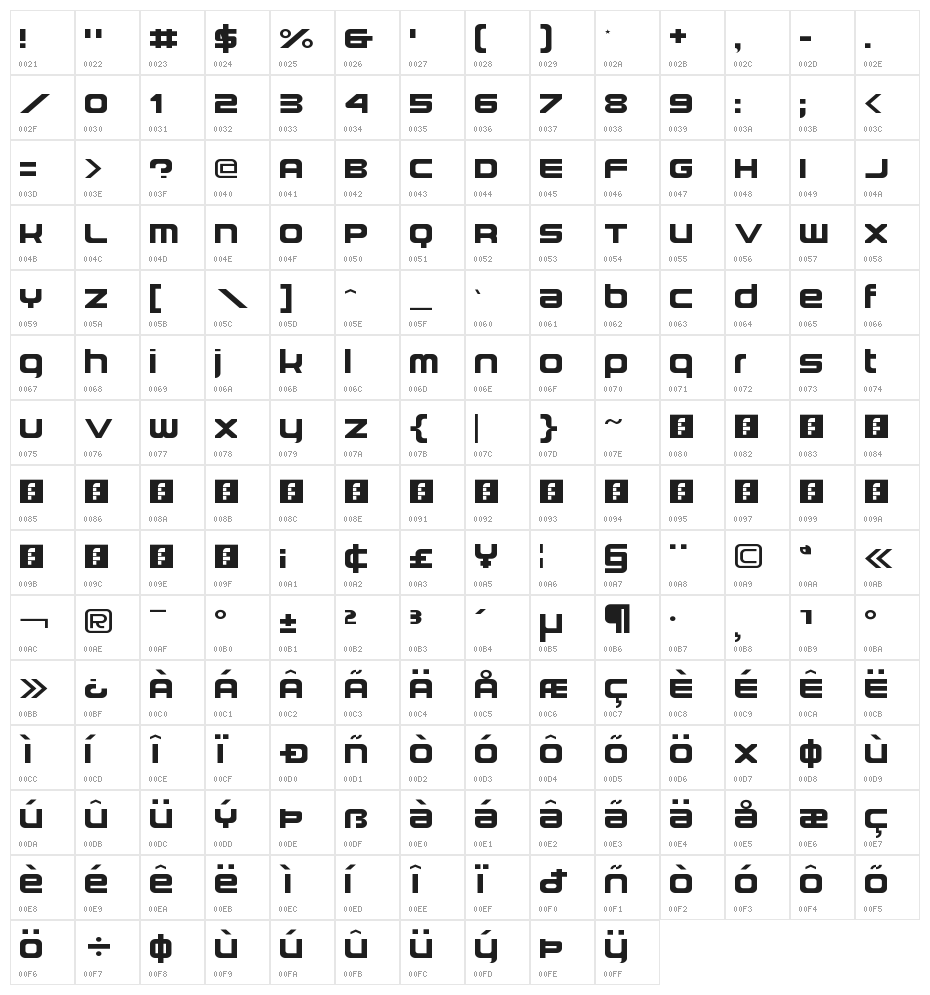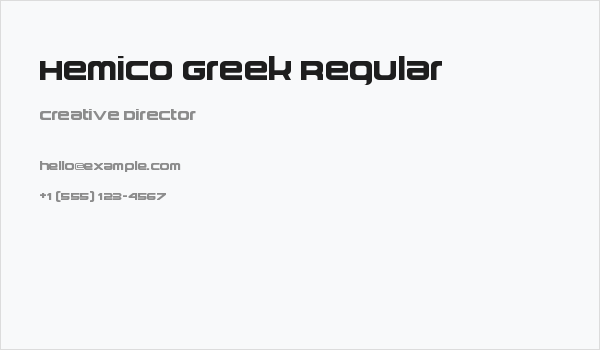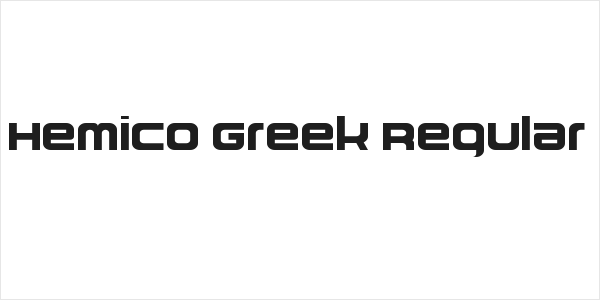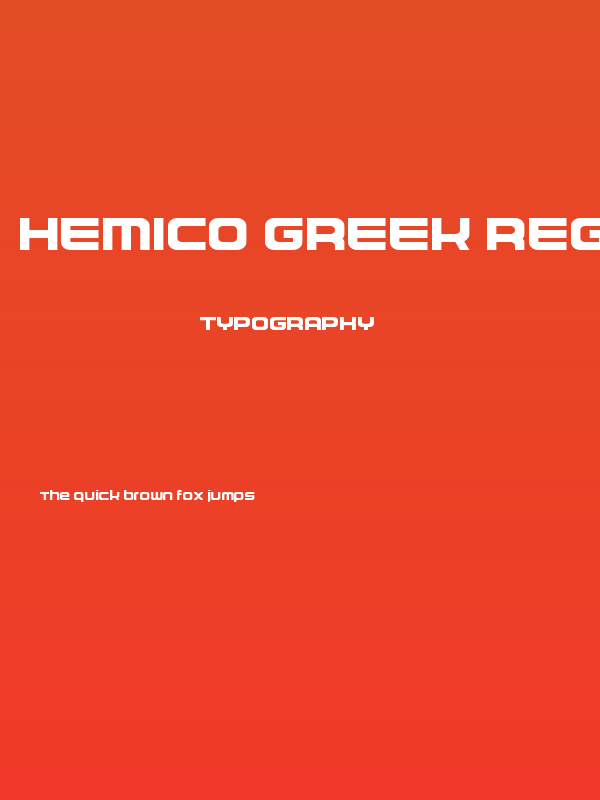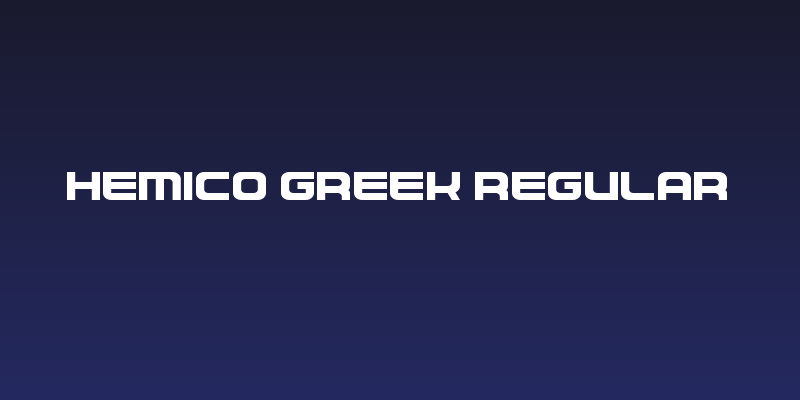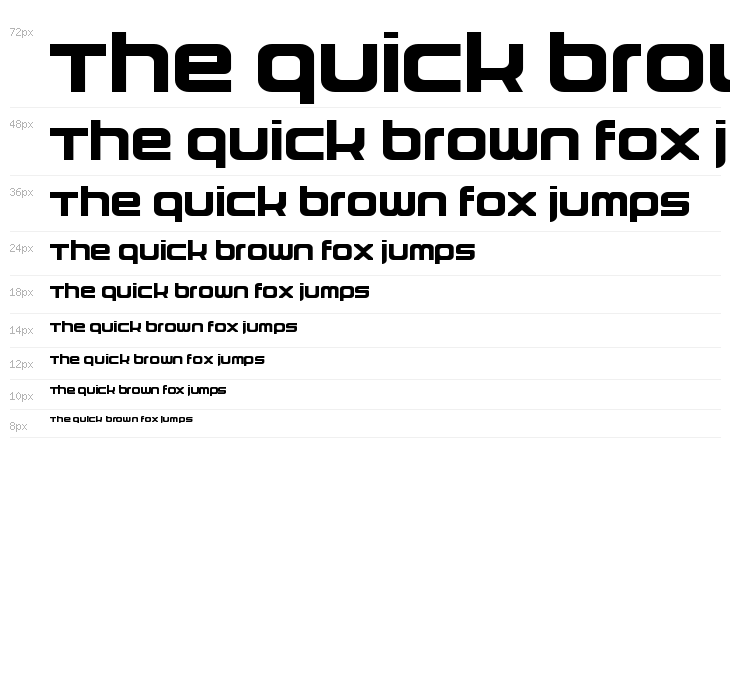
Hemico Greek Regular Font
Hemico Greek Regular Description
This font features a bold and geometric design with a modern aesthetic. The characters are constructed with clean lines and a uniform thickness, giving it a strong and assertive appearance. The uppercase and lowercase letters are well-balanced, with a slight squaring of the curves that adds to its contemporary feel. The numerals are consistent with the letterforms, maintaining the same boldness and clarity. Special characters are distinct and match the overall style, making this font versatile for various applications.
| Proposed Projects | Ideal for branding, headlines, posters, and digital interfaces where a strong, modern presence is desired. |